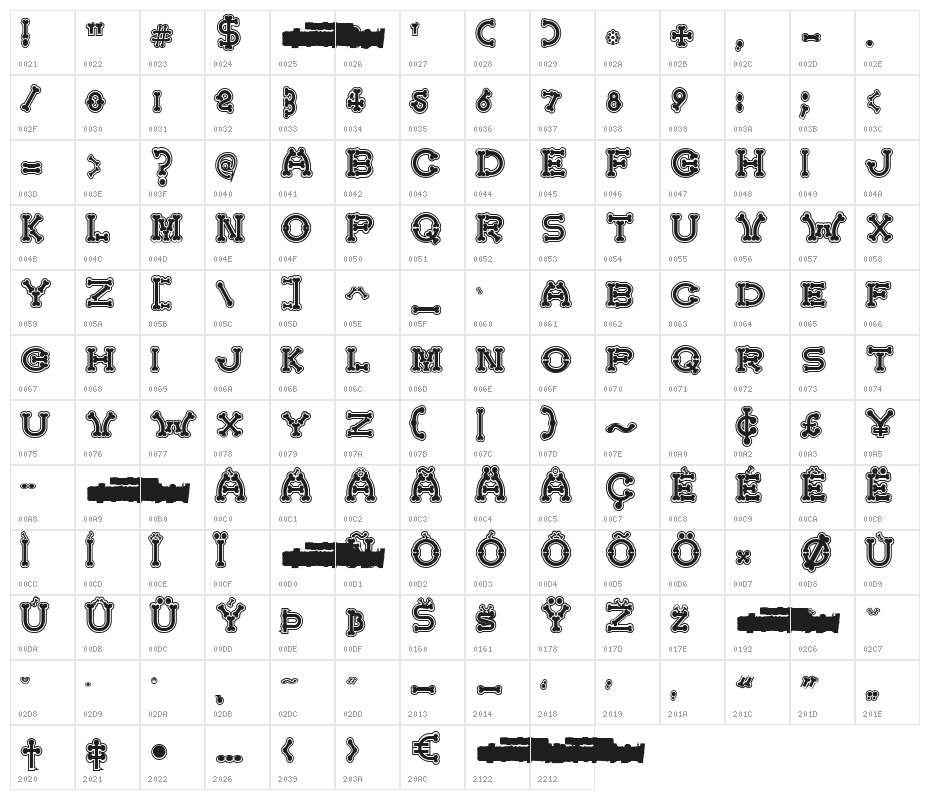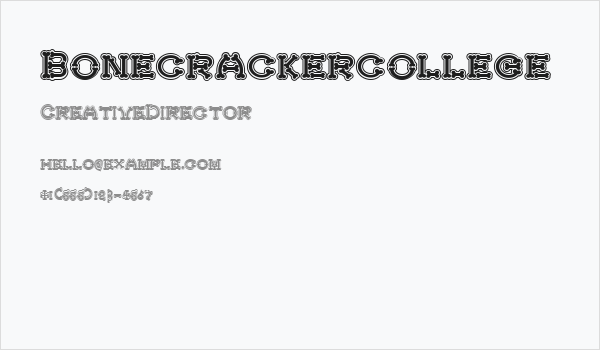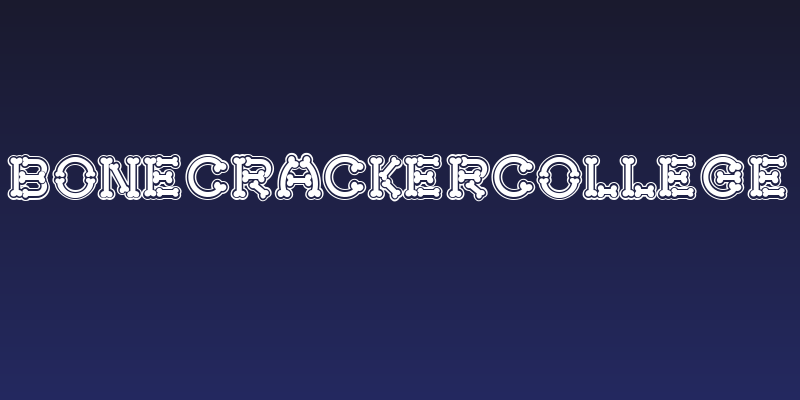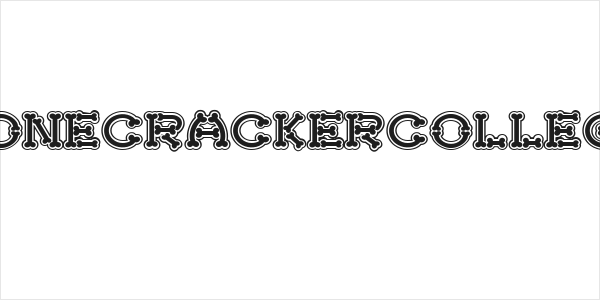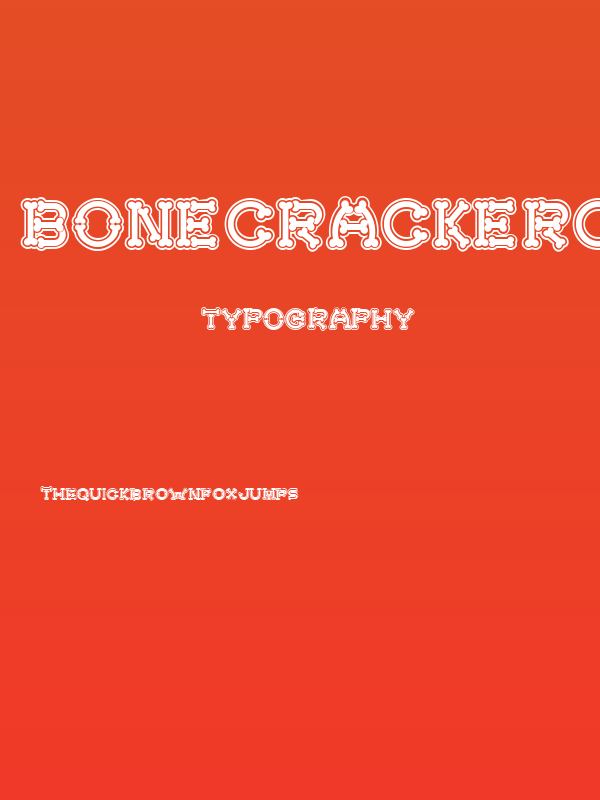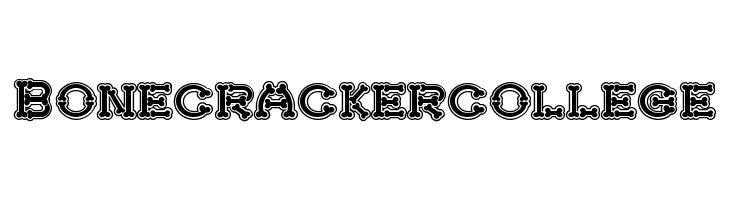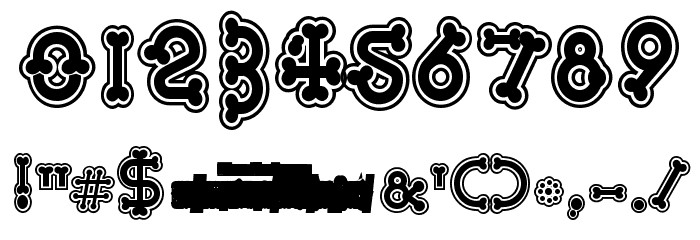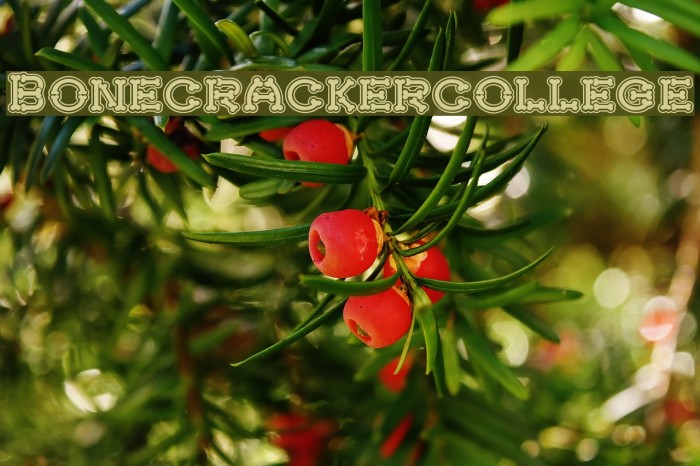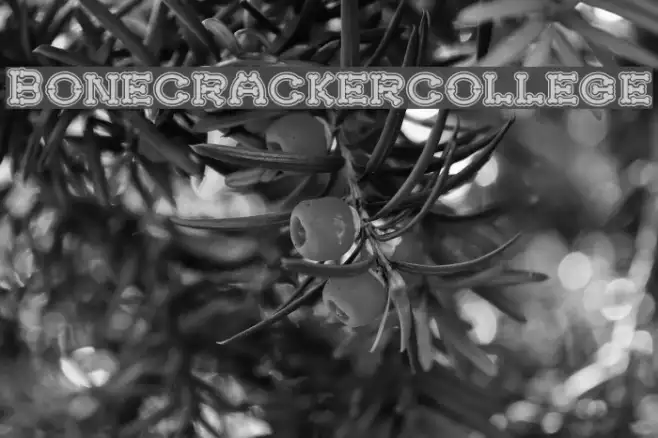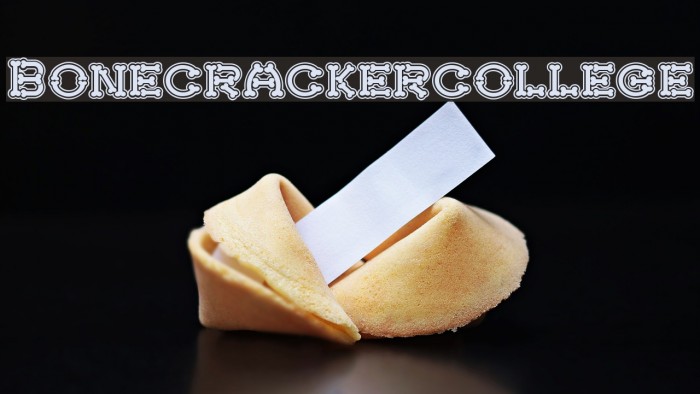
Bonecrackercollege Font
Bonecrackercollege Description
This font features a playful and bold design with a bone-like structure, creating a unique and eye-catching appearance. The characters are outlined with a thick border, giving them a three-dimensional effect. The font maintains a consistent width across all characters, enhancing its uniformity. The playful nature of the design makes it suitable for creative and informal projects. The numbers and special characters follow the same bone-inspired theme, adding to the overall cohesiveness of the font. Its distinct style is perfect for projects that require a fun and quirky touch.
| Proposed Projects | Ideal for Halloween-themed designs, children's book covers, party invitations, and playful branding. |